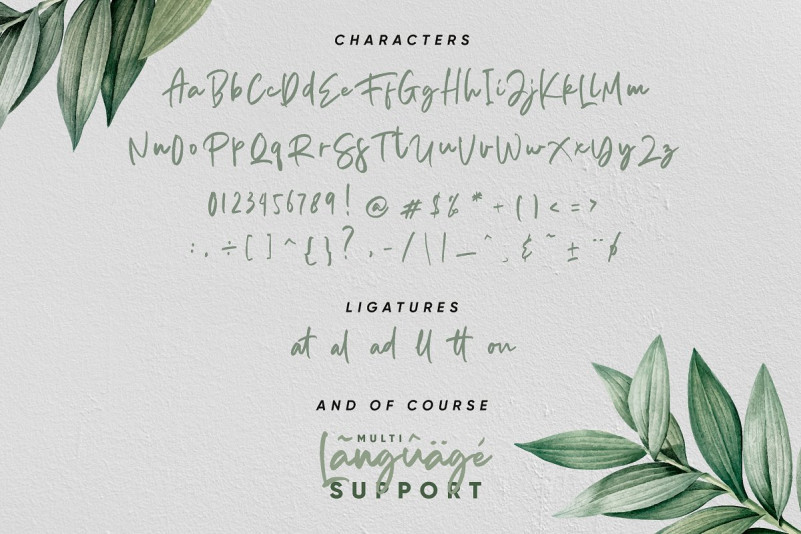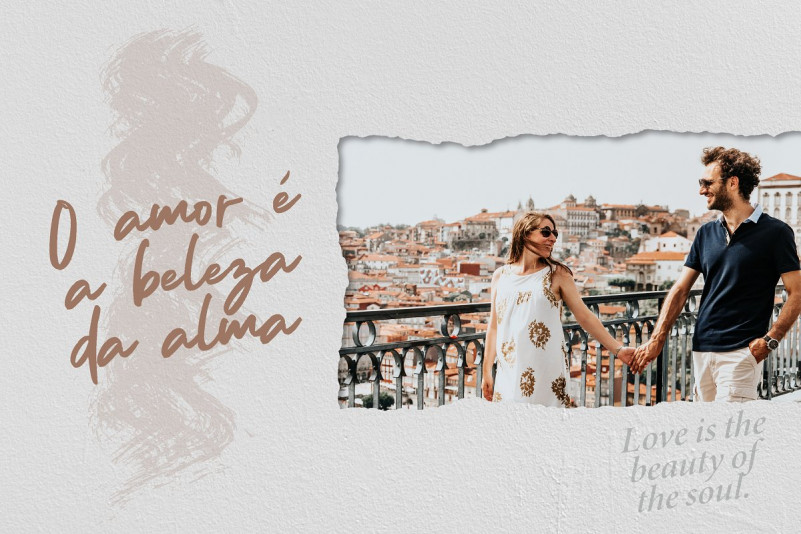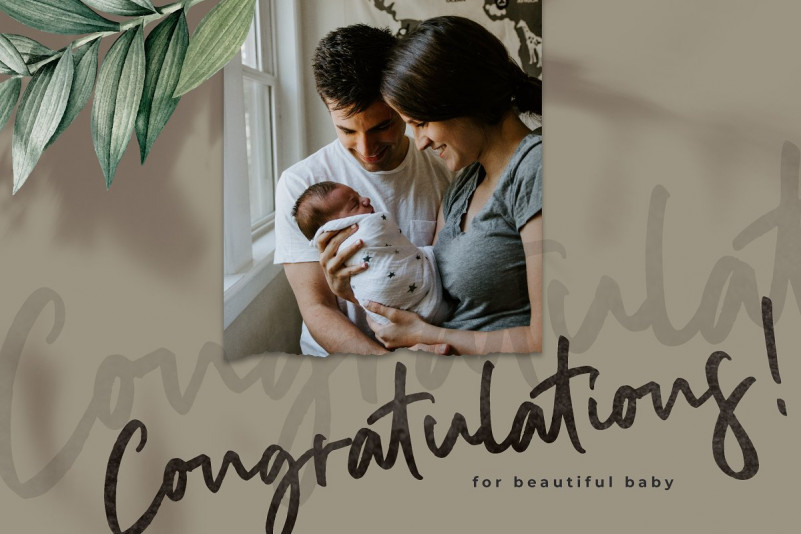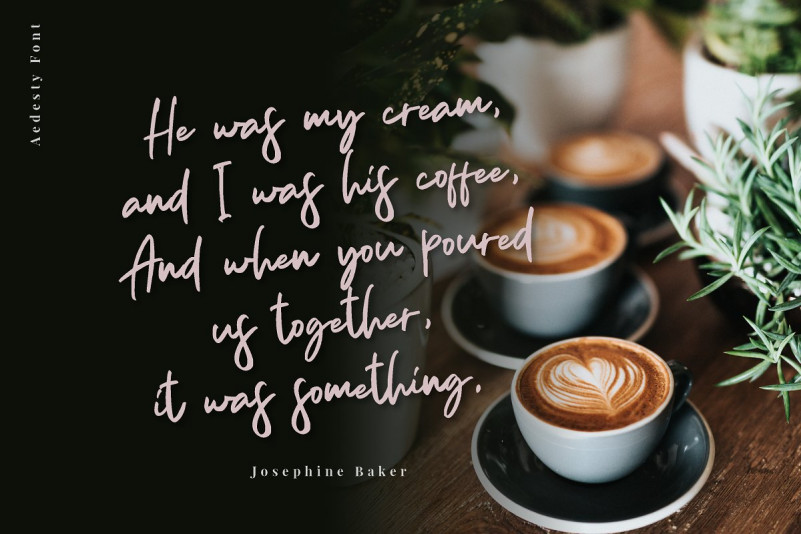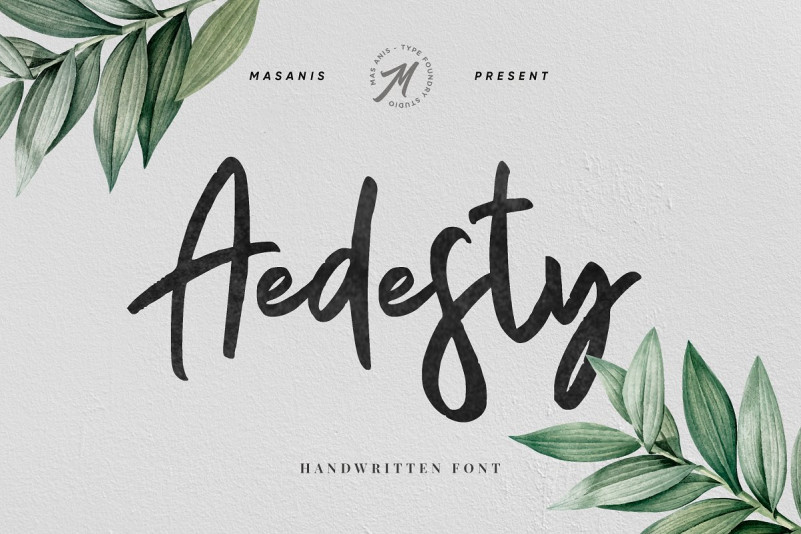
Aedesty Handwritten Font
Aedesty Handwritten Demo Font
A new handlettering font is a beauty & modern handlettering font. Introducing Aedesty Font. It is designed and shared by Mas Anis . Aedesty Handwritten Font A natural handwritten font which perfect for your designs project like logo, signature, invitation, stationary, wedding photo, watermark, social media post, advertisement, poster, product packaging, label, photography, event post and other designs.